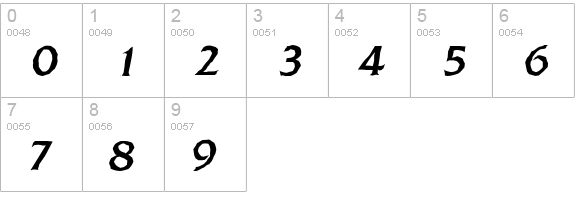
QuadratAntique-Italic Font Details
QuadratAntique-Italic is a distinctive, italic variant in the QuadratAntique typeface family \xE2\x80\x94 well suited to design and typography projects.
QuadratAntique-Italic is a classic and elegant font that exudes sophistication and charm. With its stylish slanted design and timeless appeal, this font is perfect for adding a touch of vintage flair to your projects. The italicized style of QuadratAntique-Italic adds a sense of drama and grace, making it ideal for headings, quotes, invitations, and more. The best part is that QuadratAntique-Italic is available for free download at FontsMarket.com. So, you can easily access this stunning font and elevate your designs with its unique and striking appearance. Whether you're working on a branding project, creating a wedding invitation, or designing a poster, QuadratAntique-Italic is sure to make a lasting impression. Download it today and add a touch of timeless elegance to your work!